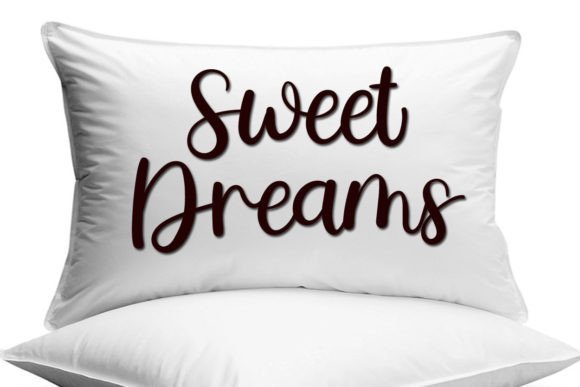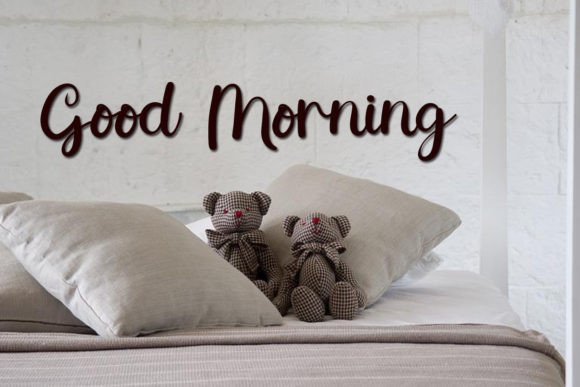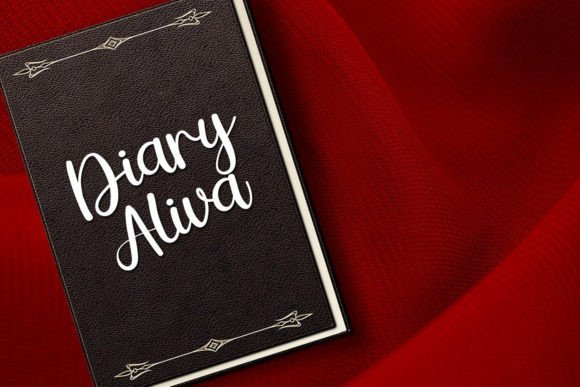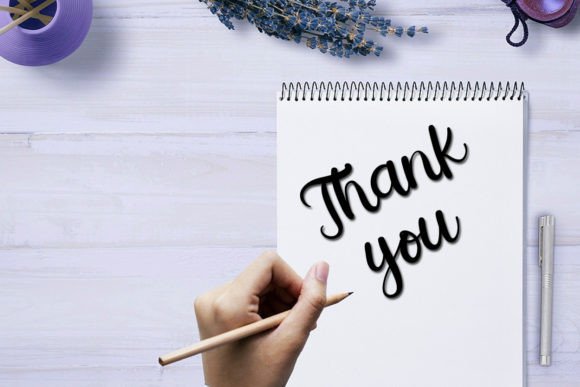
About Booth Font
“Booth is a breath of fresh air in the realm of handwritten fonts, offering a perfect blend of freshness and beauty. Its versatility extends to various design purposes, making it an excellent choice for YouTube banners, cover logo mockups, wedding invitations, ID cards, flyers, crafts, and more. Utilizing Booth in your designs contributes not only to aesthetic appeal but also to the progression and development of your business.
What sets Booth apart is its simplicity and uniqueness, providing a distinctive character to your projects. The clean lines and charming curves of this font make it a standout choice for a wide range of creative endeavors. Whether you’re creating digital content, print materials, or crafting personalized invitations, Booth adds a touch of elegance and individuality.
Imagine the impact Booth can have on your YouTube banners, making them visually appealing and memorable. Picture it gracing your wedding invitations, setting the tone for a special occasion with its fresh and beautiful strokes. Incorporate Booth into your logo mockups, and witness how it brings a unique charm to your brand identity.
From ID cards to crafts and beyond, Booth’s adaptability ensures that it enhances various design contexts. It becomes more than just a font; it becomes a signature element that contributes to the overall success and aesthetic excellence of your projects.
Choose Booth for your design endeavors and experience the simplicity, uniqueness, and freshness it brings to the table. Let it be the font that elevates your business and creative pursuits, leaving a lasting impression on your audience with its charm and character.”